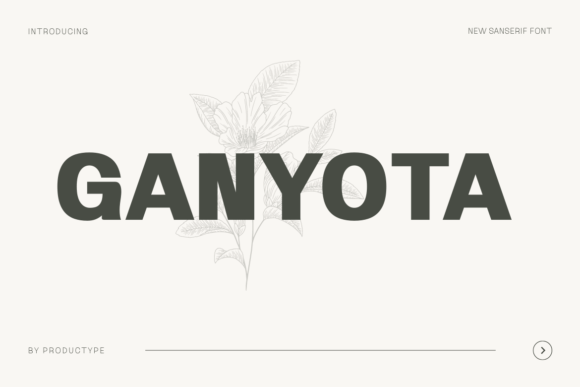
Behold, the Ganyota Font, a captivating creation by Productype that will revolutionize your design endeavors. This modern sans serif font exudes a charm that is both timeless and contemporary, making it the ultimate choice for crafting titles that demand attention. With its clean lines and elegant curves, Ganyota effortlessly elevates any project, transforming ordinary words into captivating headlines.
Embark on a typographic journey with Ganyota, a versatile font family that adapts seamlessly to a myriad of design styles. Whether you're creating a striking logo, an informative poster, or an engaging presentation, Ganyota's unwavering presence commands attention. Its crisp and legible characters ensure effortless readability, even at smaller sizes, making it the perfect font for both digital and print applications.
With its innate ability to enhance and amplify, Ganyota possesses the power to transform your designs into captivating masterpieces. Unleash your creativity and let Ganyota guide you towards typographic excellence. Experience the joy of seamless navigation as you effortlessly traverse Ganyota's diverse range of weights and styles. From the delicate Hairline to the bold and commanding Black, Ganyota offers a comprehensive selection that caters to your every design need.
But Ganyota's allure extends far beyond its aesthetic appeal. This meticulously crafted font is engineered to optimize performance and ensure effortless integration into your creative workflow. Its compact file size minimizes loading times, ensuring lightning-fast performance, while its extensive language support guarantees seamless compatibility with a global audience.
Ganyota is more than just a font; it's an investment in design excellence. Its timeless beauty and unwavering versatility make it a font that will remain a cornerstone of your creative arsenal for years to come. Join the ranks of discerning designers who have discovered the power of Ganyota and elevate your work to new heights of sophistication and impact.